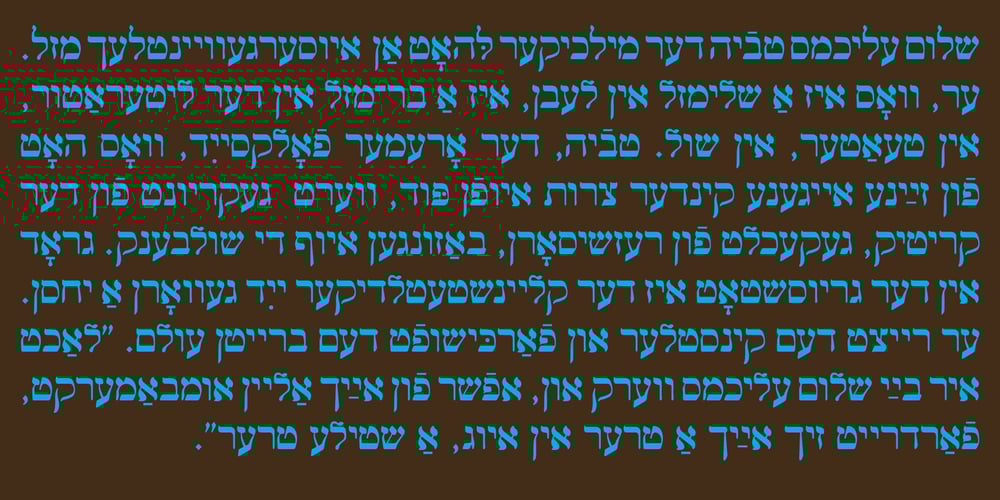
Hebrew Yiddish Std Font Family was designed by Sami Artur Mandelbaum and published by Samtype. Hebrew Yiddish Std contains 1 styles and family package options. This is a classic early 20th century Yiddish font.This has all the new modern Nikud like: Qamats Katan, ShevaNa, Dagesh Hazak and Holam Chaser.